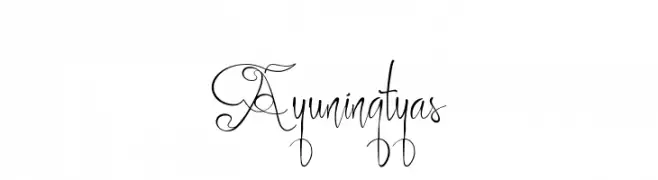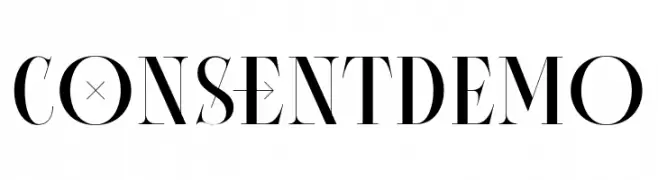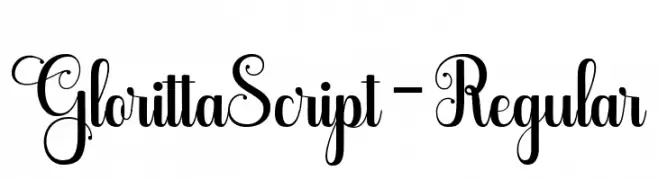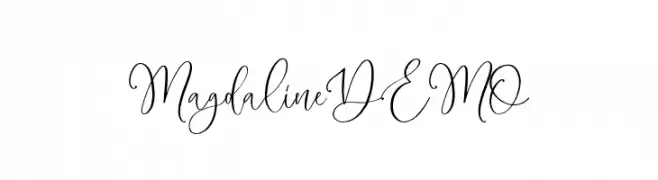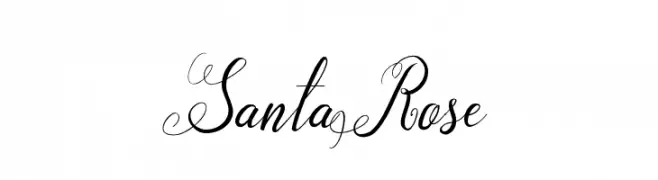
An elegant script font with flowing, interconnected letters and luxurious flourishes.
An elegant and ornate script font with decorative swirls and loops.
An elegant calligraphy font with flowing strokes and decorative flourishes.
An elegant script font with flowing, interconnected letters and ornate swashes.
An elegant, decorative font with intricate swirls and flourishes.
An ornate script font with intricate swirls and flourishes, perfect for elegant designs.
A high-contrast, elegant serif font with sharp serifs and clean lines.
An elegant script font with flowing, cursive letters and a classic, sophisticated style.
A high-contrast serif font with elegant, sharp serifs and a modern classic style.
An elegant, flowing script font with intricate loops and flourishes.